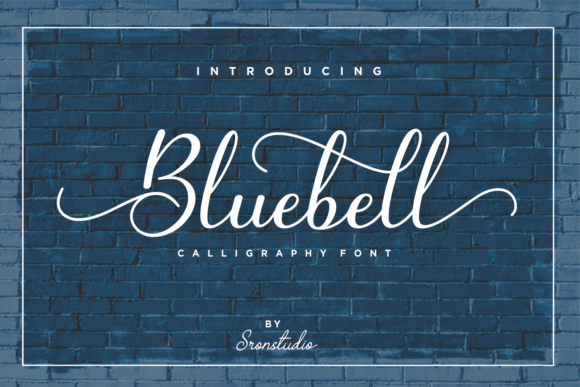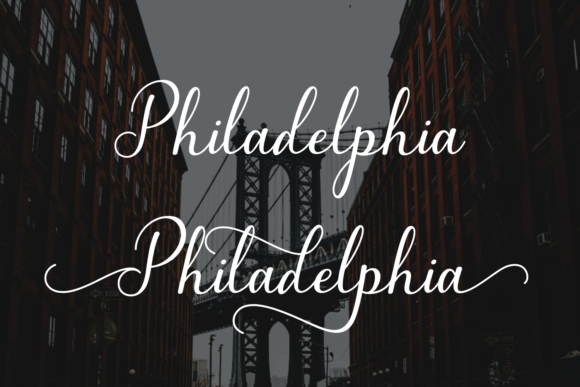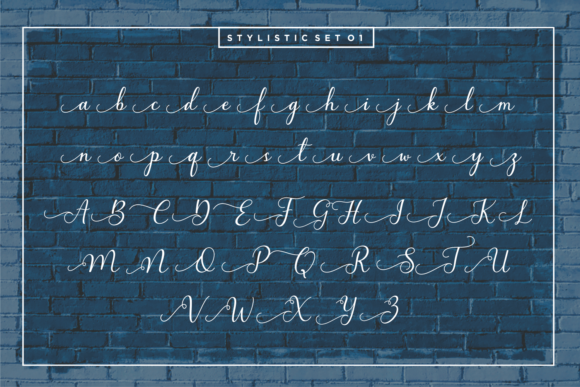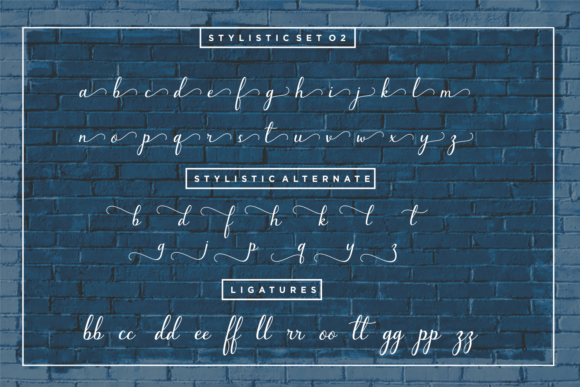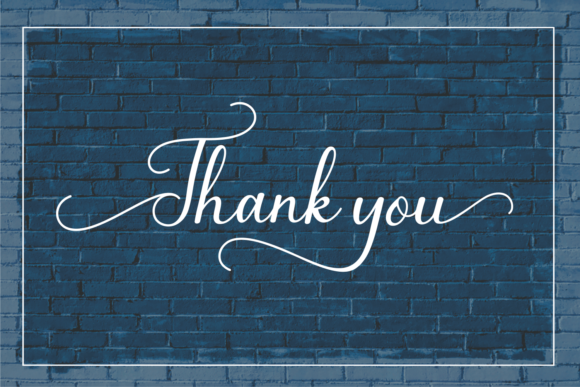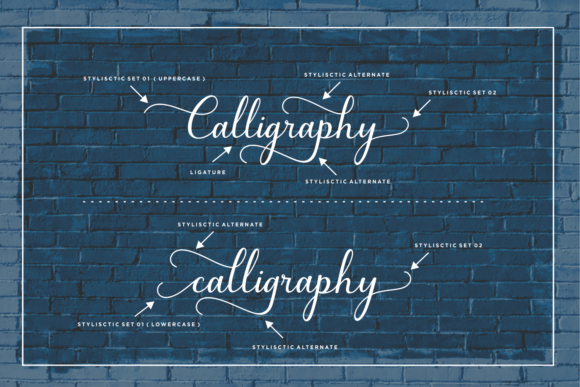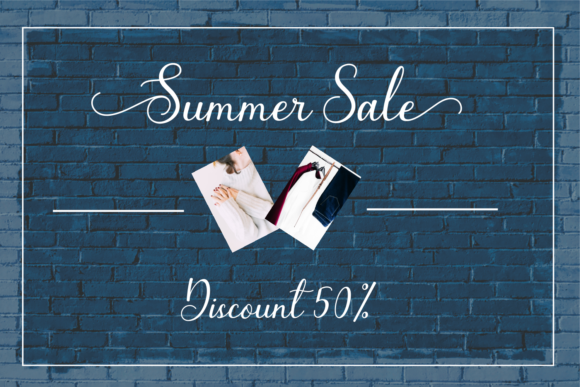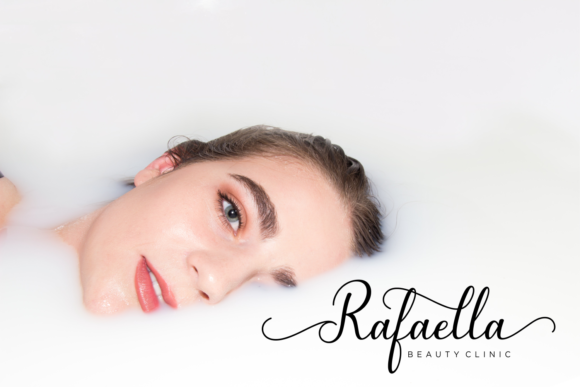
Bluebell Font
About Bluebell Font
Bluebell is a new, modern & fresh calligraphy font. Bluebell looks natural, elegant and is perfect for any awesome project such as: logos & branding, invitations, stationery, wedding designs, social media posts, advertisements, product packaging, product designs, labels, photography, watermarks, special events and much more!